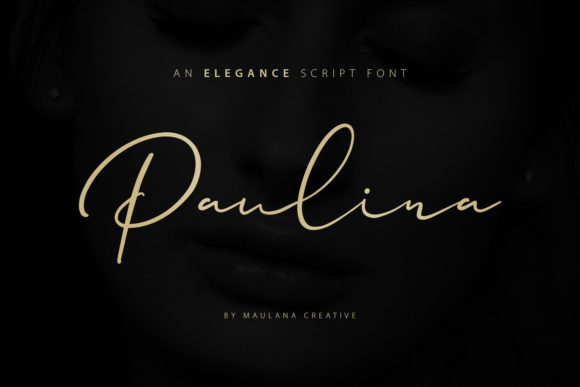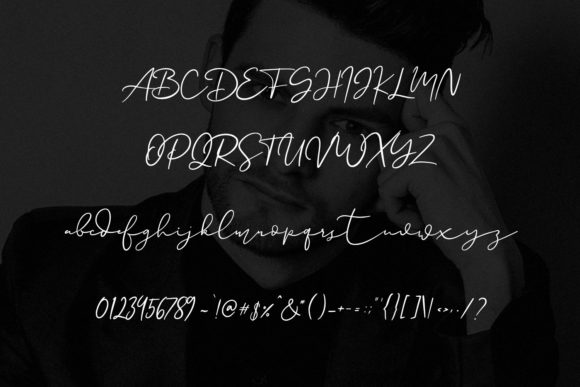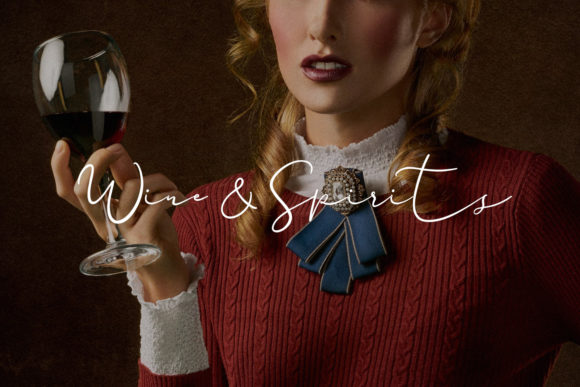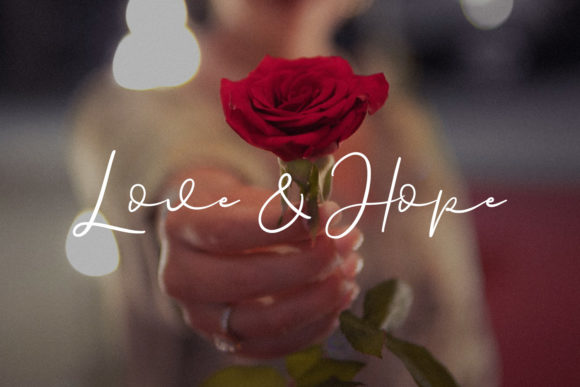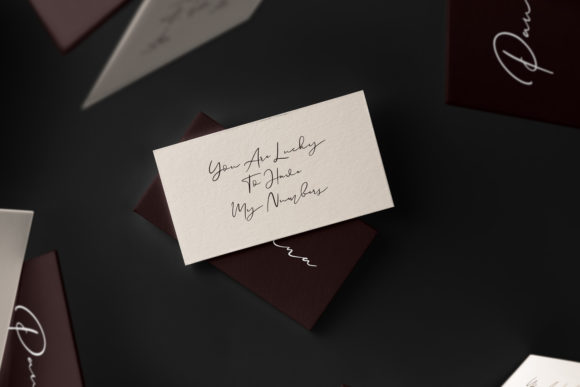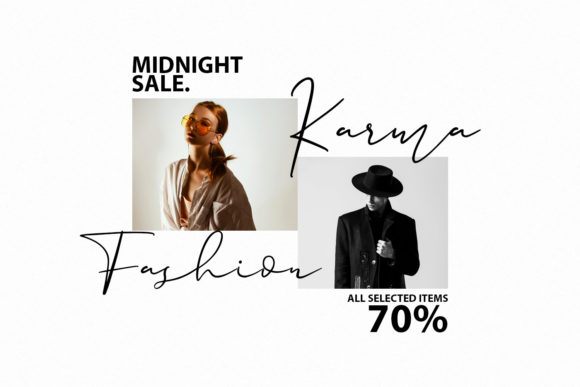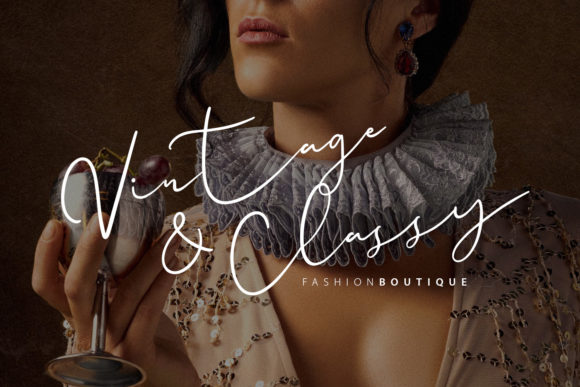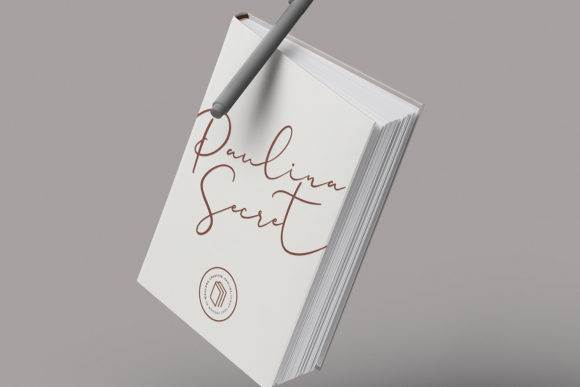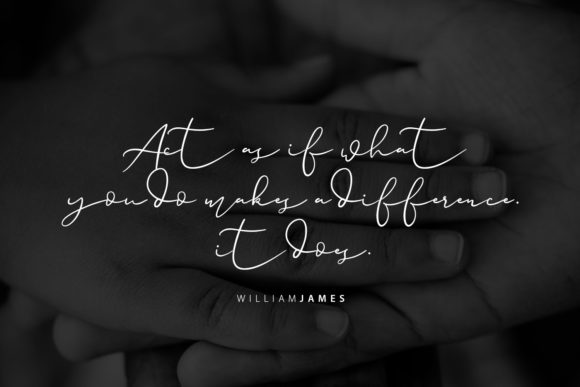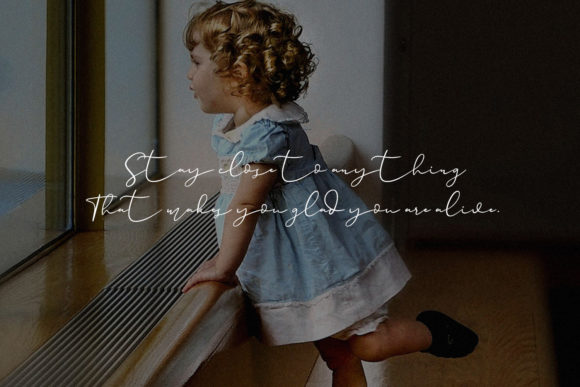
HomeScript FontsPaulina Font Script Fonts Paulina Font FacebookXPinterestWhatsApp Paulina Font Poster 2 Paulina Font Poster 3 Paulina Font Poster 4 Paulina Font Poster 5 Paulina Font Poster 6 Paulina Font Poster 7 Paulina Font Poster 8 Paulina Font Poster 9 Paulina Font Poster 10 About Paulina Font Paulina is a perfectly sweet and cool handwritten font that will add an extraordinary feel to any crafting idea! DOWNLOAD ON CREATIVE FABRICAThis font is sold and delivered by Creative Fabrica. Font Canyon may earn a commission if you buy through this link. People also explored The Westview The Rivers Font Makcex Bella Canvas 3001B Heather Columbia Blue Painting Vintage Font Elsa Artemis Font Rustic Font Fleur Bleue – Beautiful Romantic Font Castelo Script Font 342 0 TagsPaulina Font Previous articleWhite Lotus FontNext articleArlobuns Font LEAVE A REPLY Cancel reply Comment: Please enter your comment! Name:* Please enter your name here Email:* You have entered an incorrect email address! Please enter your email address here Website: Save my name, email, and website in this browser for the next time I comment. Personal Use Free Green Fuz Personal Use Free Read more about this font Wondery Personal Use Free Read more about this font Frizton Personal Use Free Read more about this font Zelega Zenega Personal Use Free Read more about this font BLOG Elegant Wedding Invitation Fonts – Handwritten & Script Fonts Elegant Wedding Invitation Fonts Your wedding day is one of the most important moments of your life, and every detail matters—including your invitation design. Our... Fonts That Capture the Spirit of New York City Free Fonts Risk: Why Free Fonts Can Be Dangerous for Designers Free vs Paid Fonts: Why Investing in Premium Fonts Is Worth It